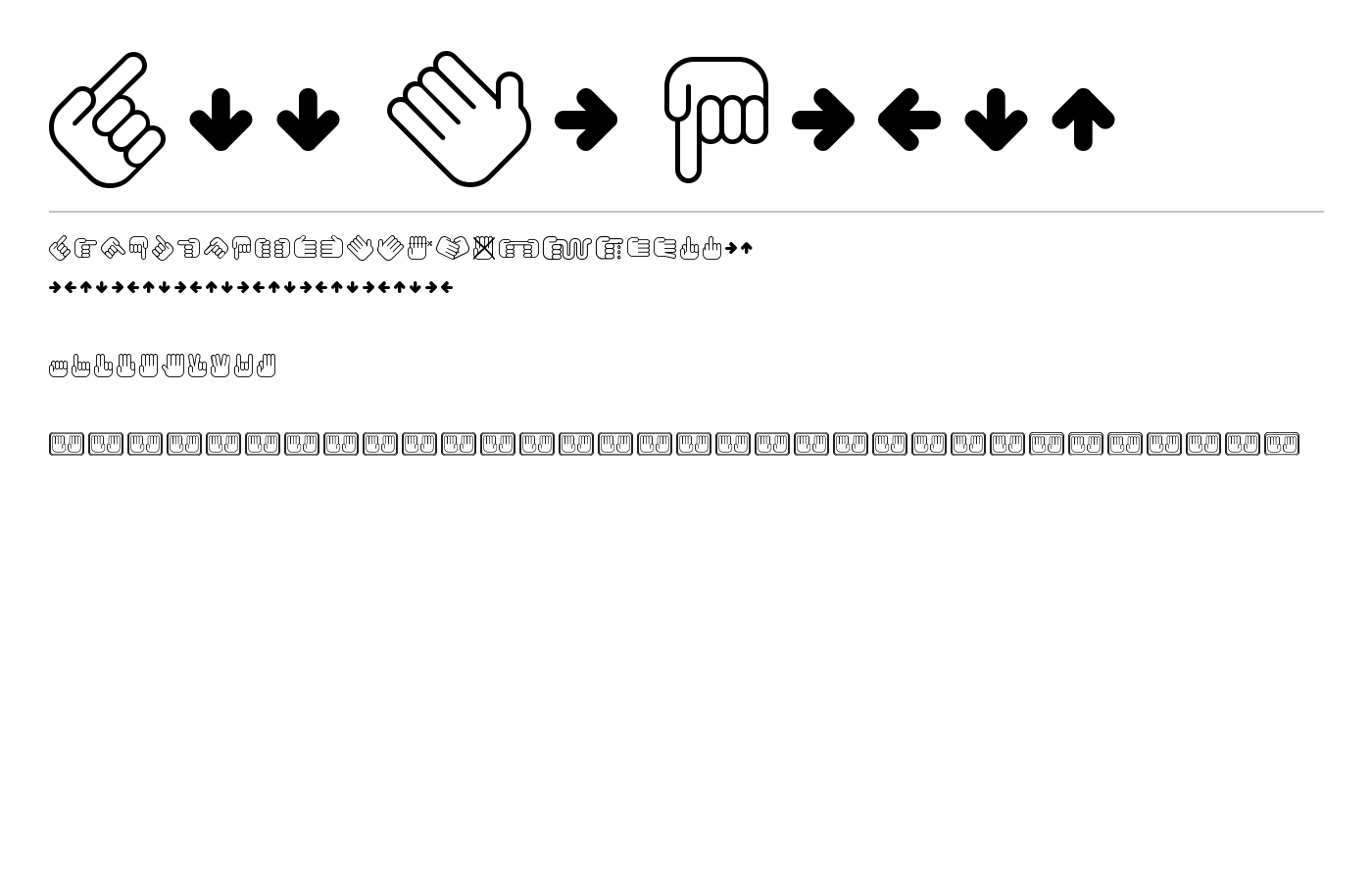
All My Hands Font is a playful and bold icon-style typeface composed entirely of hand gestures and arrows. Its rounded, thick strokes and simple outlined shapes give it a friendly and expressive personality, making it perfect for casual design projects, user interface icons, or fun signage. This font works best when used as decorative elements or visual accents to communicate direction and interaction in an engaging and approachable way.
All My Hands Font